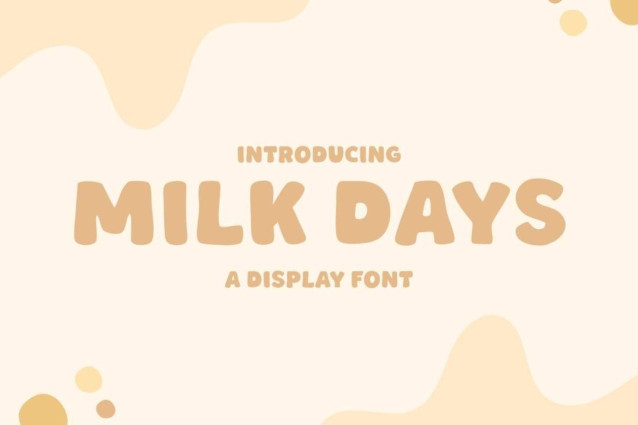
Milk Days Font
Milk Days Font is a simple and modern display font suitable for quotes, logos, headings, titles, and many more. Use it on any of your creative projects, and your designs will become outstanding!